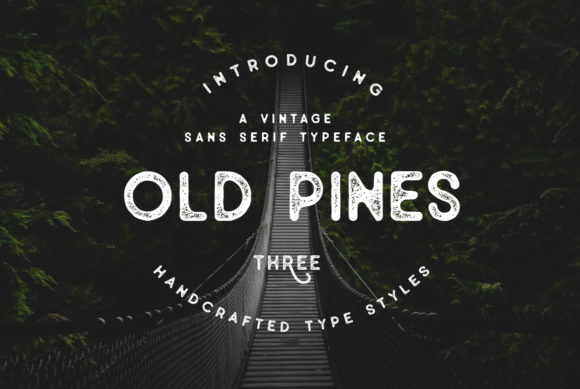
Old Pines Font: A Vintage Sans Serif Font with a Casual Charm
Are you looking for a font that can add a touch of nostalgia and elegance to your design projects? Look no further than the Old Pines font, a vintage sans serif font that has been carefully handcrafted to become a true favorite among designers. With its casual charm and down-to-earth feel, Old Pines is the perfect choice for a wide range of design applications, from busy backgrounds to standalone headlines.
The Characteristics of Old Pines Font
Old Pines is a sans serif font, which means that it doesn’t have the small lines or flourishes that are commonly found at the ends of letters in serif fonts. This gives Old Pines a clean and modern look that is perfect for designs that require a bit of sophistication and elegance. Despite its modern appearance, Old Pines has a distinctly vintage feel that sets it apart from other sans serif fonts.
One of the key characteristics of Old Pines is its casual charm. This font has a relaxed, laid-back feel that makes it perfect for designs that require a bit of personality and character. Whether you’re working on a project that requires a bit of humor or a design that needs to convey a sense of friendliness, Old Pines is the perfect choice.
The Benefits of Using Old Pines Font
So why should you choose Old Pines font for your design projects? Here are just a few of the benefits of using this versatile and elegant font:
- Readability: Old Pines is an incredibly readable font, even at small sizes. This makes it perfect for designs that require a lot of text, such as blog posts, articles, and website content.
- Versatility: Old Pines is a versatile font that can be used in a wide range of design applications, from print materials to digital designs. Whether you’re working on a brochure, a website, or a social media post, Old Pines is the perfect choice.
- Elegance: Old Pines has a distinctly elegant feel that makes it perfect for designs that require a bit of sophistication and refinement. Whether you’re working on a luxury brand or a high-end product, Old Pines is the perfect choice.
How to Use Old Pines Font in Your Designs
Old Pines is a versatile font that can be used in a wide range of design applications. Here are just a few ideas for how you can use Old Pines in your designs:
Using Old Pines as a Headline Font
One of the most effective ways to use Old Pines is as a headline font. With its bold and elegant appearance, Old Pines is perfect for grabbing the attention of your audience and drawing them into your design. Whether you’re working on a print ad, a website header, or a social media post, Old Pines is the perfect choice for a headline font.
Using Old Pines as a Body Font
Old Pines is also an excellent choice for body text. With its readability and elegance, Old Pines is perfect for long blocks of text, such as articles, blog posts, and website content. Whether you’re working on a website, a brochure, or a report, Old Pines is the perfect choice for body text.
Using Old Pines on Busy Backgrounds
One of the things that sets Old Pines apart from other fonts is its ability to stand out on busy backgrounds. Whether you’re working on a design with a lot of texture, pattern, or imagery, Old Pines is the perfect choice. With its bold and elegant appearance, Old Pines can cut through even the busiest of backgrounds and grab the attention of your audience.
Tips for Getting the Most Out of Old Pines Font
Here are just a few tips for getting the most out of Old Pines font:
- Experiment with different font sizes: Old Pines is a versatile font that can be used at a wide range of font sizes. Experiment with different font sizes to find the one that works best for your design.
- Pair Old Pines with other fonts: Old Pines can be paired with a wide range of other fonts to create a unique and interesting design. Experiment with different font combinations to find the one that works best for your design.
- Use Old Pines consistently: To get the most out of Old Pines, use it consistently throughout your design. This will help to create a cohesive and elegant look that will draw your audience in.
Old Pines font is a vintage sans serif font that has been carefully handcrafted to become a true favorite among designers. With its casual charm, readability, and elegance, Old Pines is the perfect choice for a wide range of design applications, from busy backgrounds to standalone headlines. Whether you’re working on a print project, a digital design, or a website, Old Pines is the perfect choice. So why not give Old Pines a try and see the difference it can make in your designs?